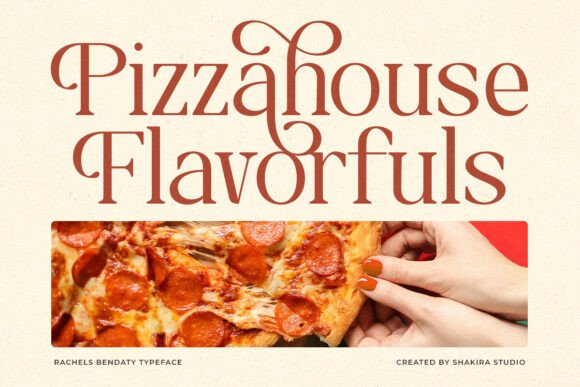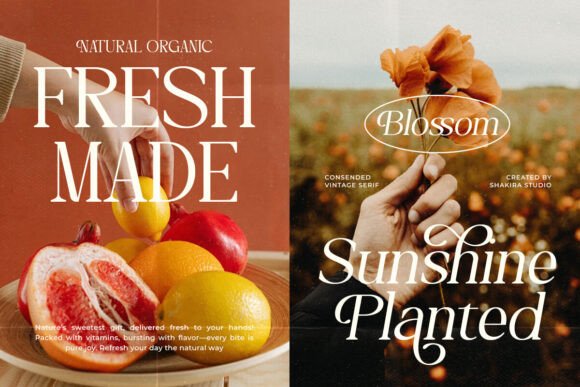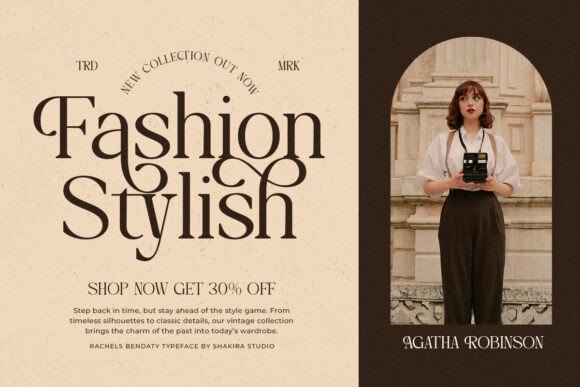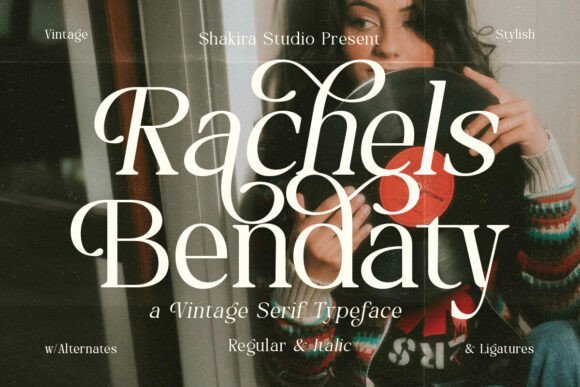
Introduction to Rachels Bendaty Font
Rachels Bendaty is a retro display serif font available in regular and italic styles.
It features a stylish and trendy design with elegant alternates and ligatures, perfect for branding, editorial projects, social media, invitations, and more Elevate your designs with its timeless charm and modern sophistication.
Key Features of Rachels Bendaty Font
Why Choose Rachels Bendaty Font?
Rachels Bendaty Font offers exceptional quality and versatility, making it a valuable addition to your design toolkit. Whether you’re creating for personal projects or commercial use, Rachels Bendaty Font delivers professional results.